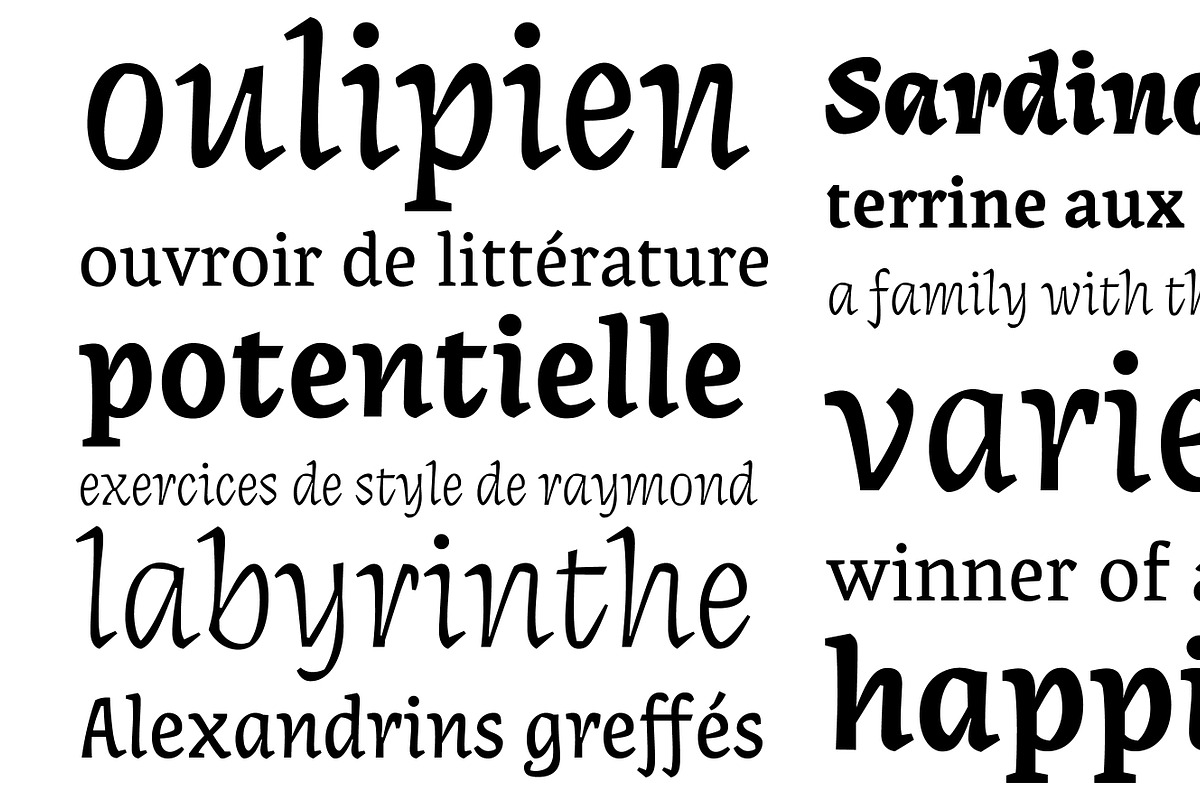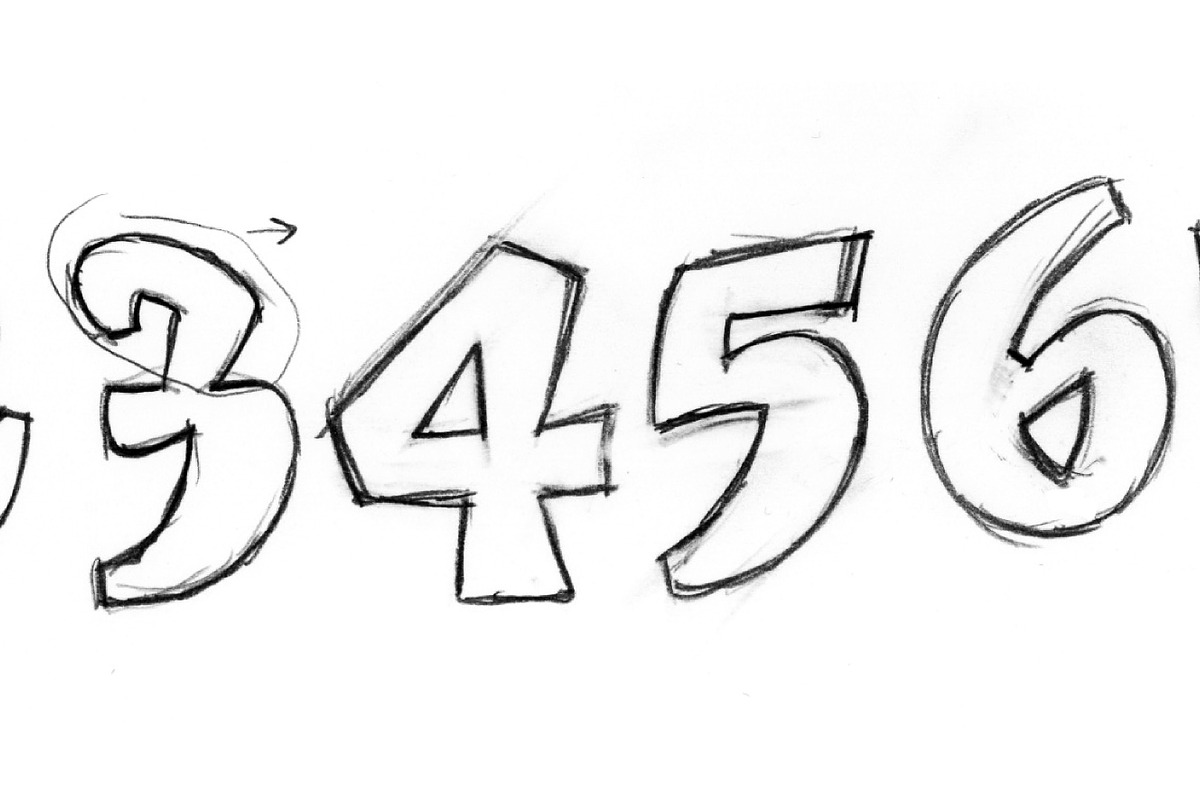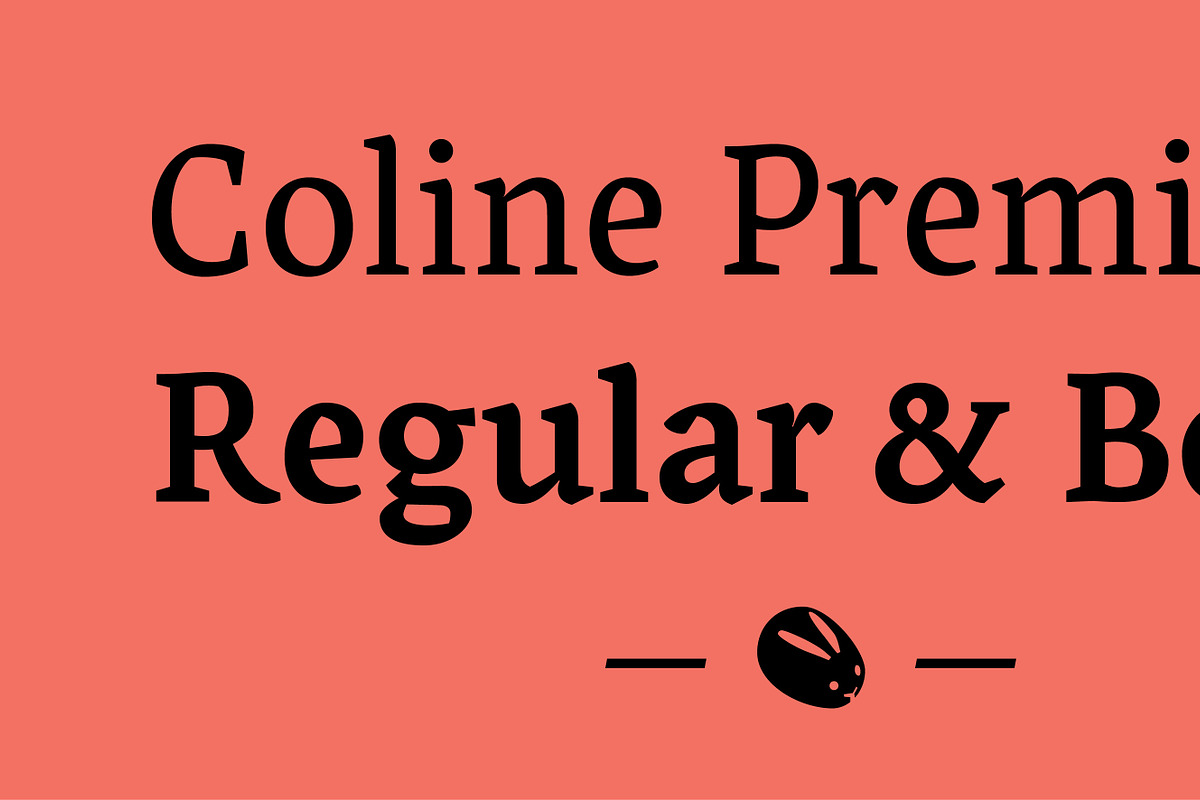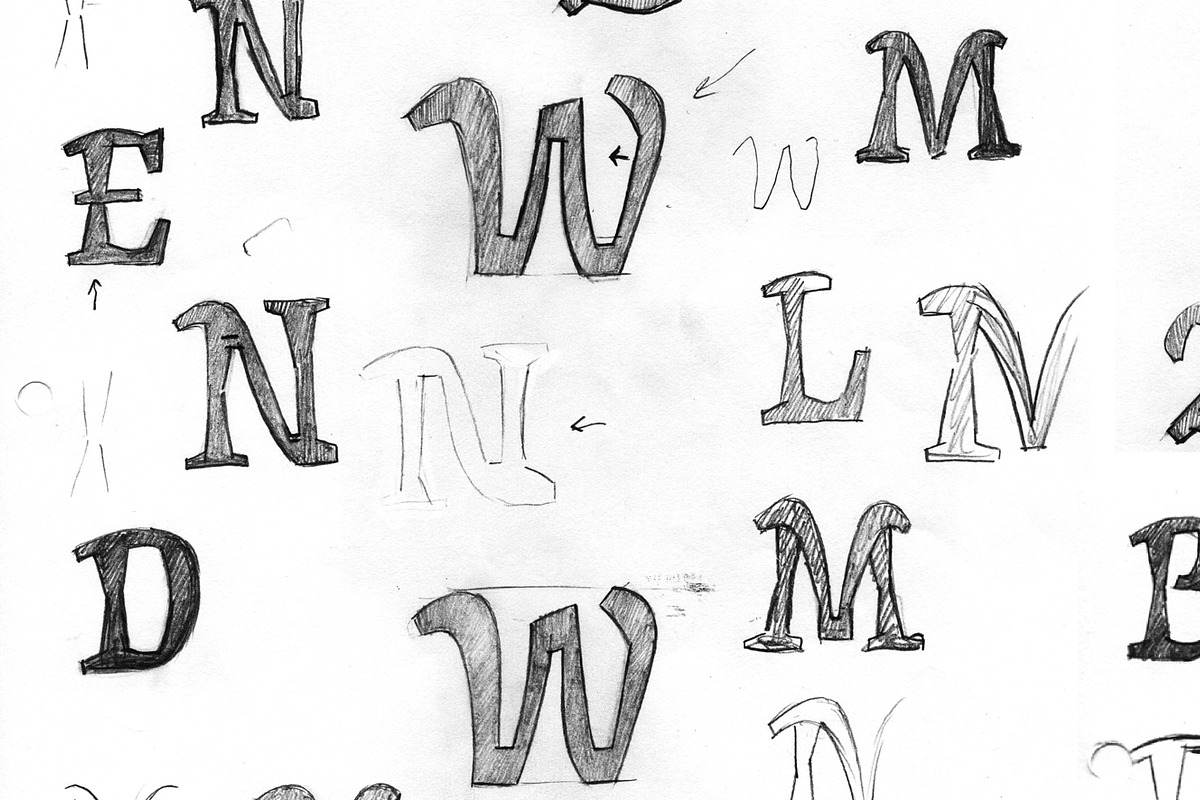
Coline Premiere
Coline is an old-style serif typeface family designed for optimal readability in pocket books. It offers three variations: Coline Premiere (a sturdy roman), Coline Cursive (a more calligraphic style), and Coline Extreme (pushing towards a handwritten aesthetic). This versatility allows for varied text styling within a single document, while maintaining a cohesive visual identity. The typeface is named after Simon de Collines, a French printer who pioneered the production of affordable pocket books for students.